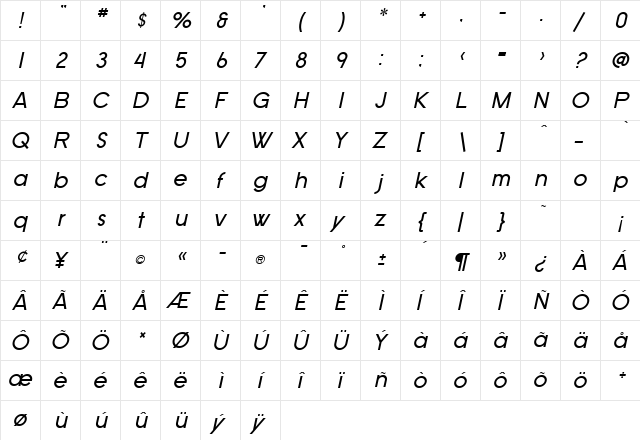
SF Old Republic Italic
Design Context for SF Old Republic Typeface
SF Old Republic takes a measured approach to typography — its balanced proportions and neutral character make it a reliable workhorse for both digital and print work. Its italic angle brings a sense of urgency and motion to the letterforms.
Pro Tip: Use SF Old Republic for emphasis, pull quotes, and subheadings where its slanted energy can add rhythm to the layout.